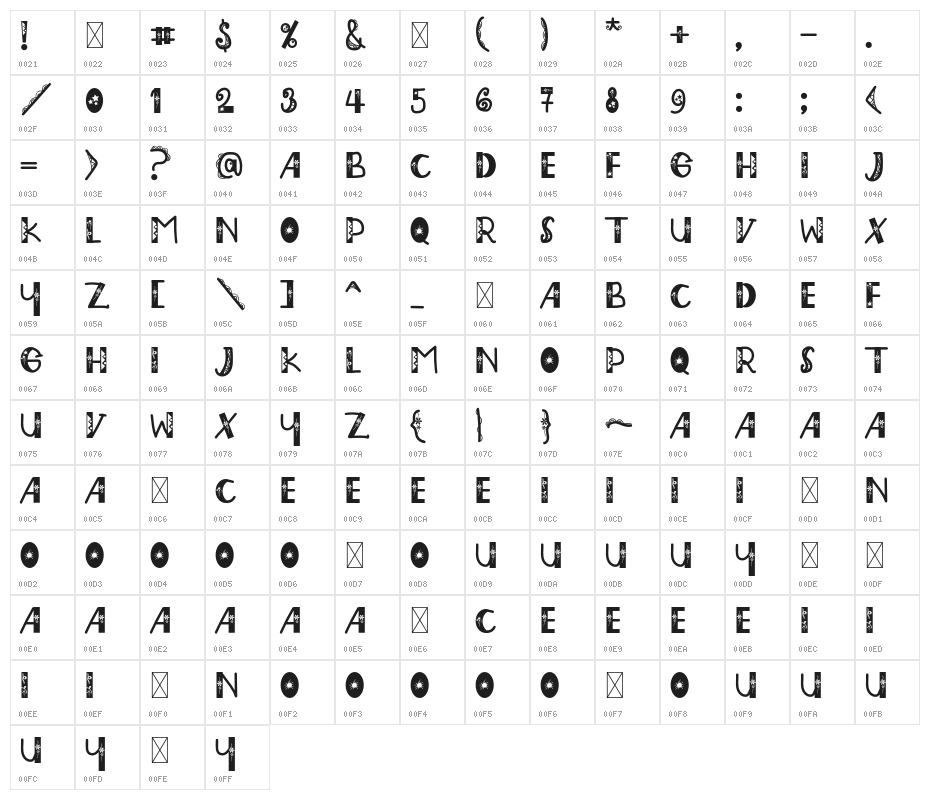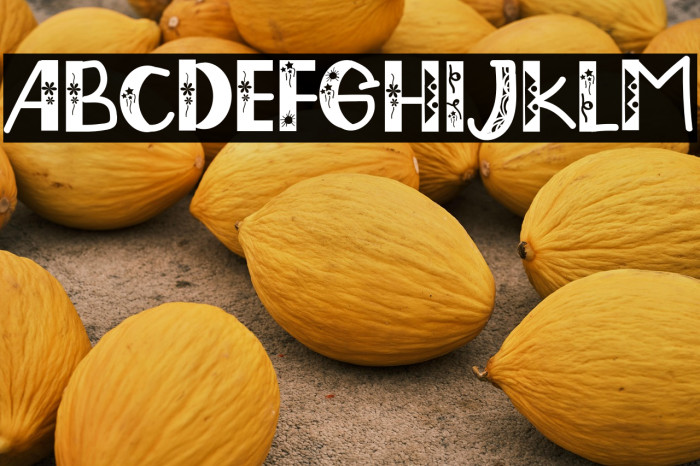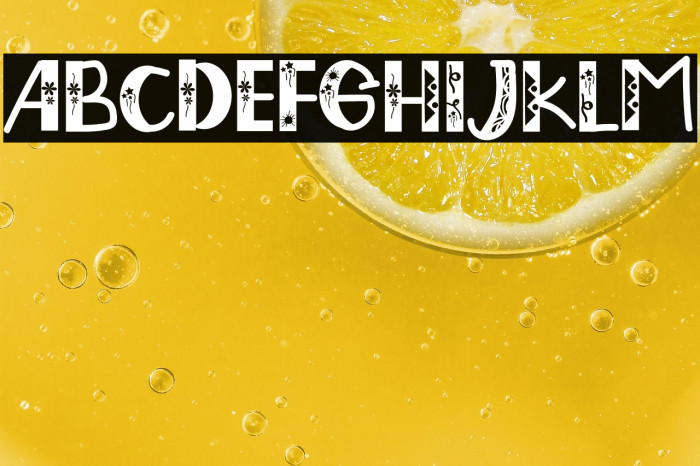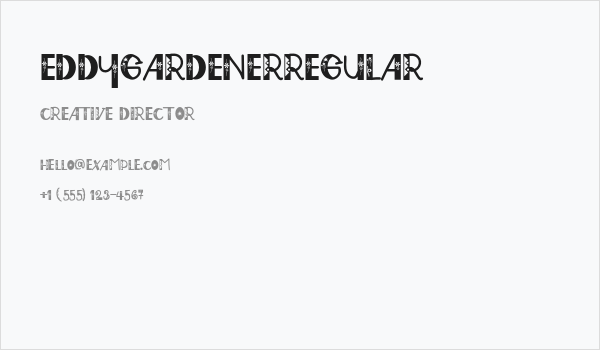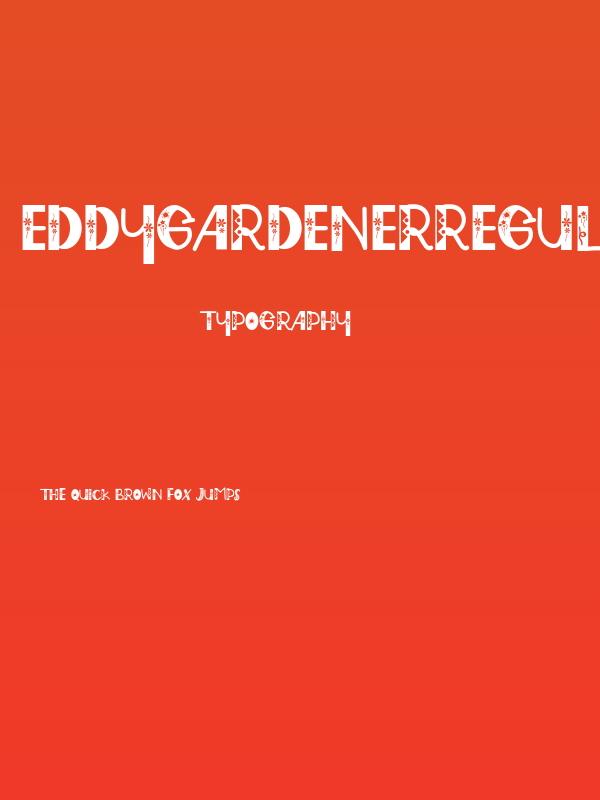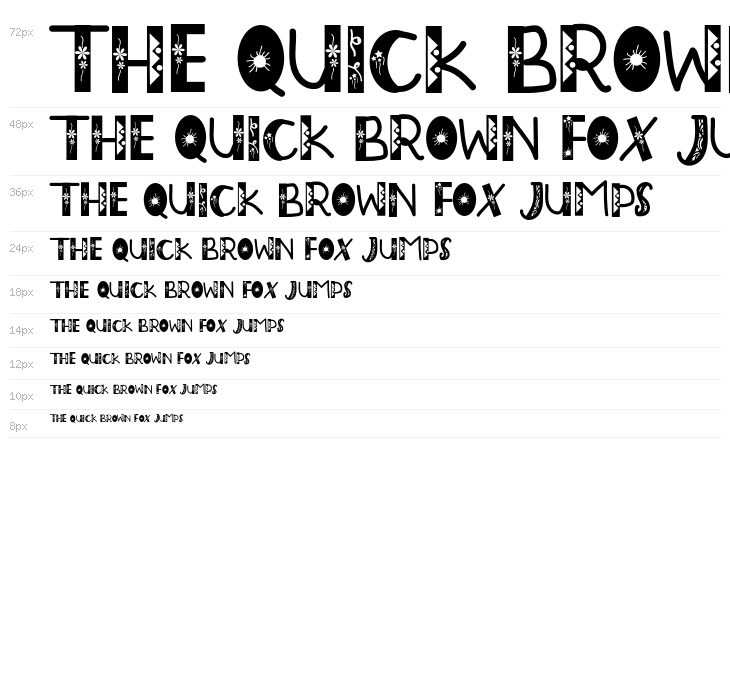
EddyGardenerRegular Font
EddyGardenerRegular Description
This font features a playful and decorative style, characterized by its unique incorporation of floral and star motifs within the letterforms. The uppercase and lowercase letters maintain a consistent whimsical theme, with bold strokes and intricate patterns that add a touch of elegance and creativity. The numbers and special characters follow the same decorative approach, making the font suitable for eye-catching designs. The overall appearance is both artistic and engaging, ideal for projects that require a fun and lively aesthetic.
| Proposed Projects | Ideal for greeting cards, children's books, party invitations, and decorative posters. |